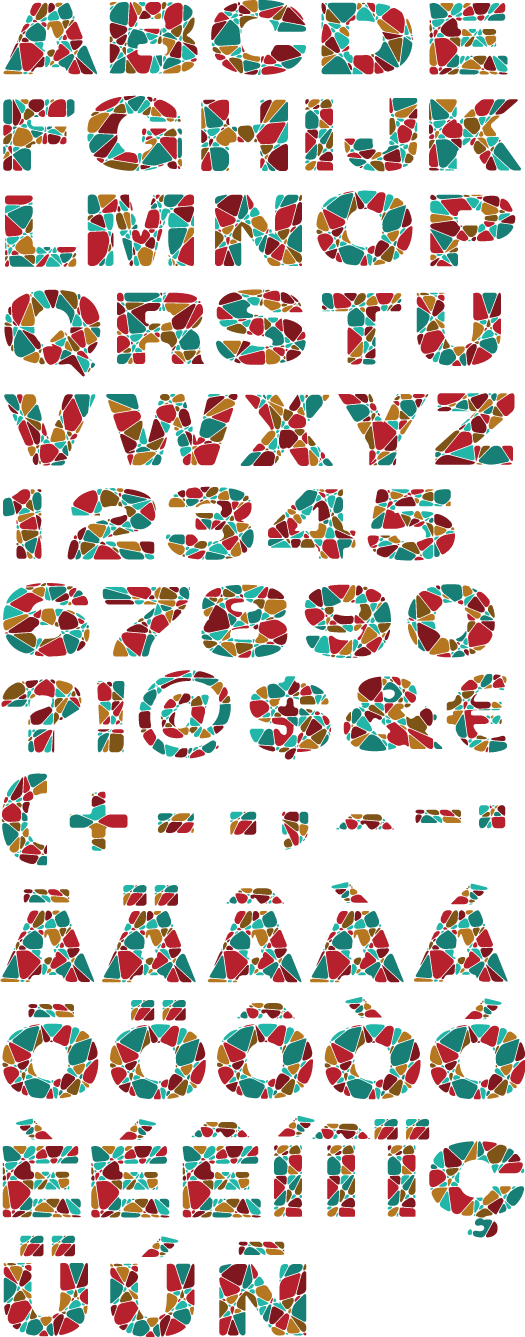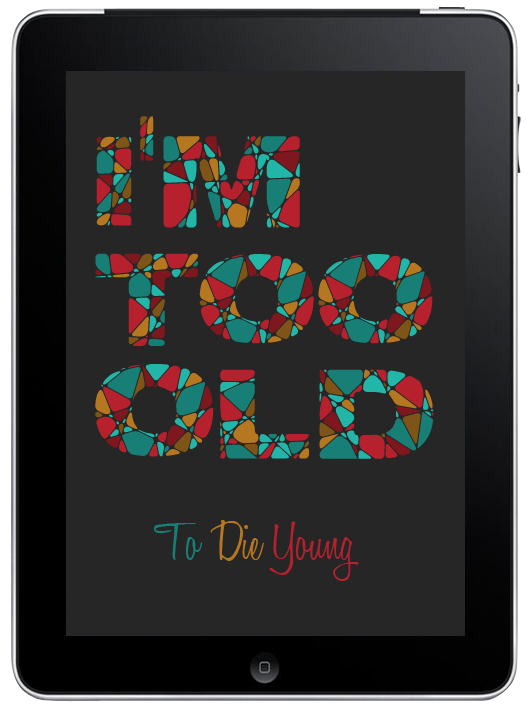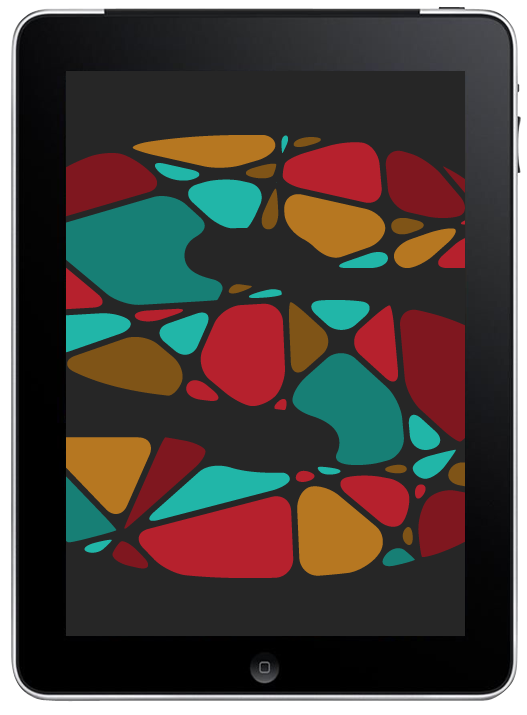
Vitraz
Life's better when you're laughing!
Vitraz Font is mosaicish, having inner dynamicity, it is playful and positive. Font was inspired by our travels to the South, vibrant cultures, colours and rhythms, and was done by putting together different colour plates creating letter-vitraz. Vitraz Font could be used to illustrate travelling experiences, cultural encounters or exciting summer memories.